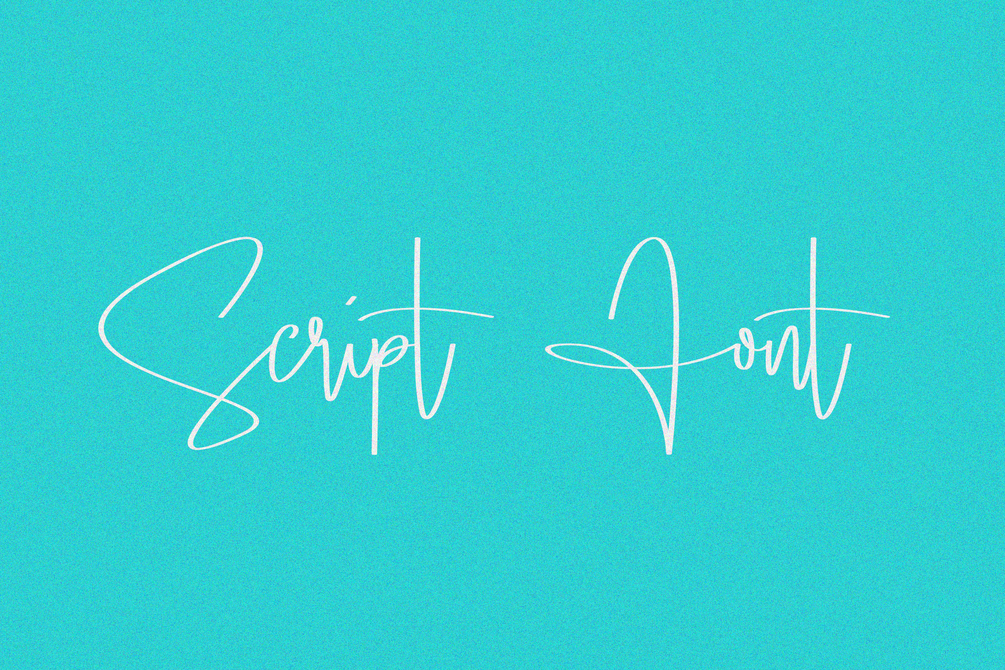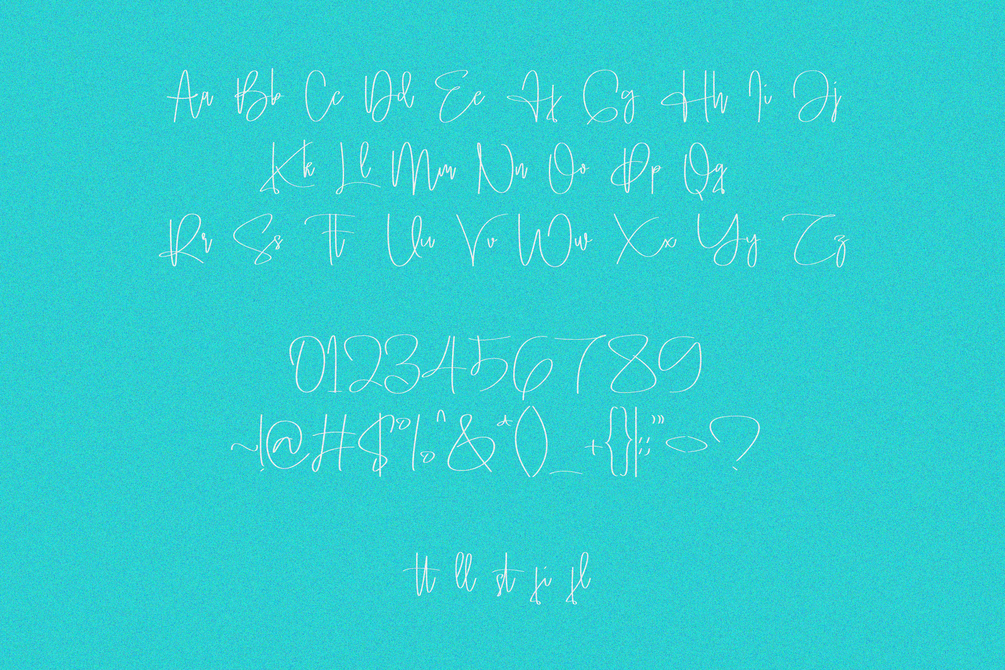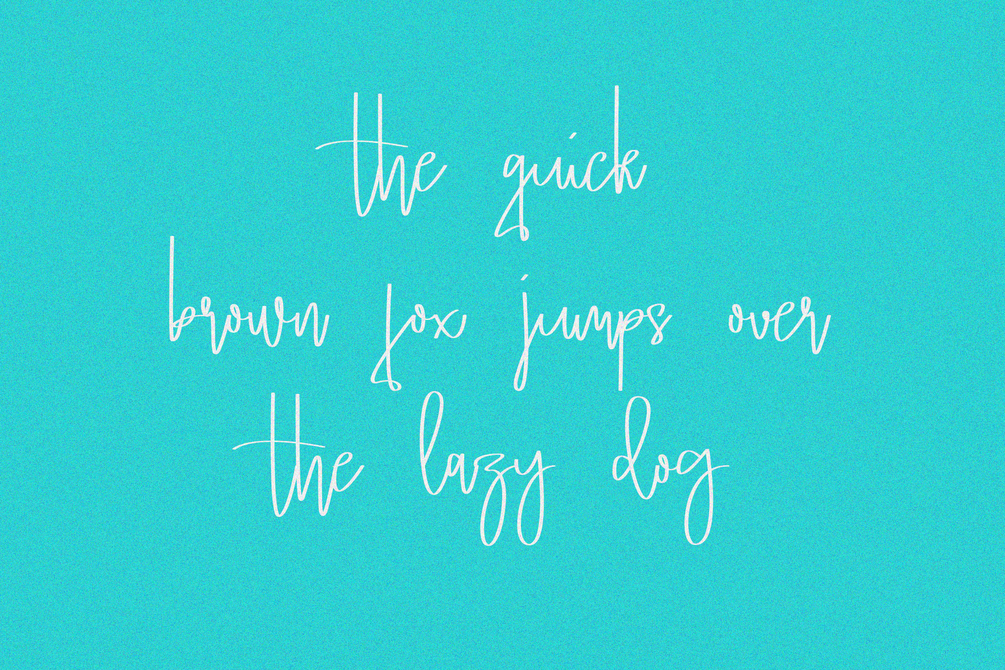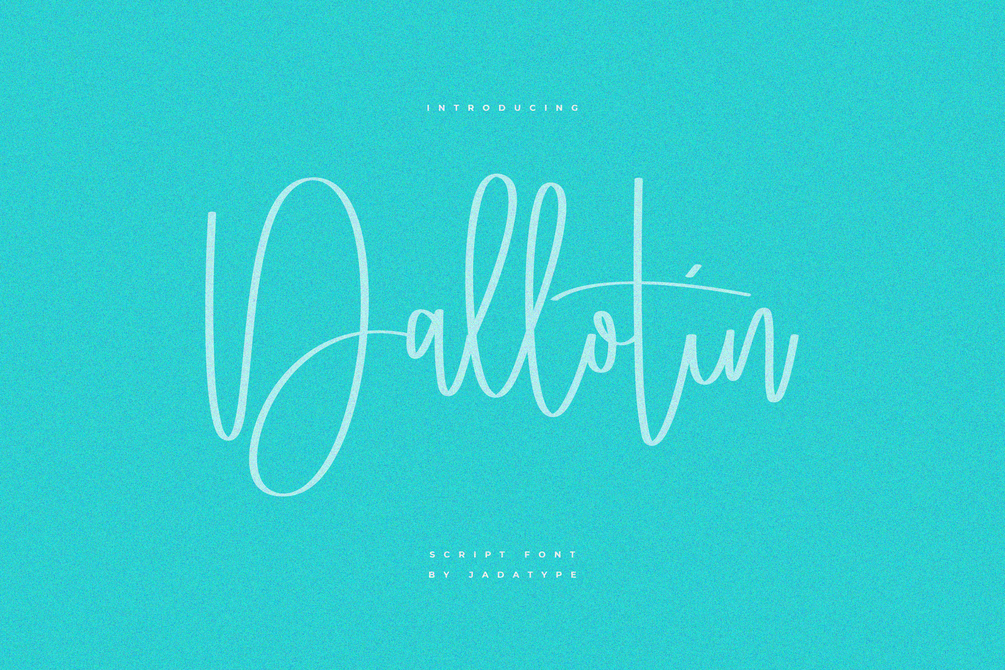
Dallotin Font
Dallotin is a script font that comes with a smooth style. suitable for posters, tshirt, branding, social media, and so on. contains standard English letters, numbers, punctuation, and several accents that support multilingualism.